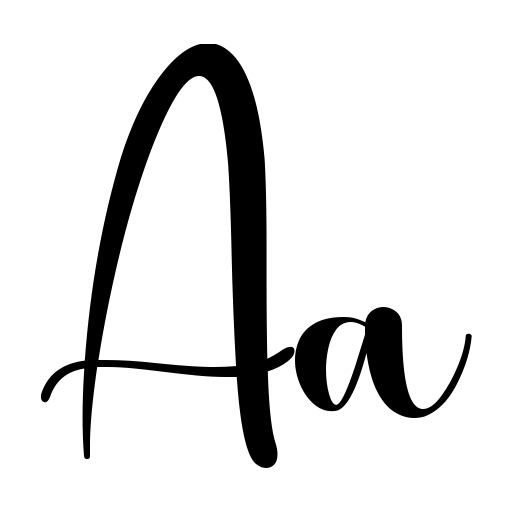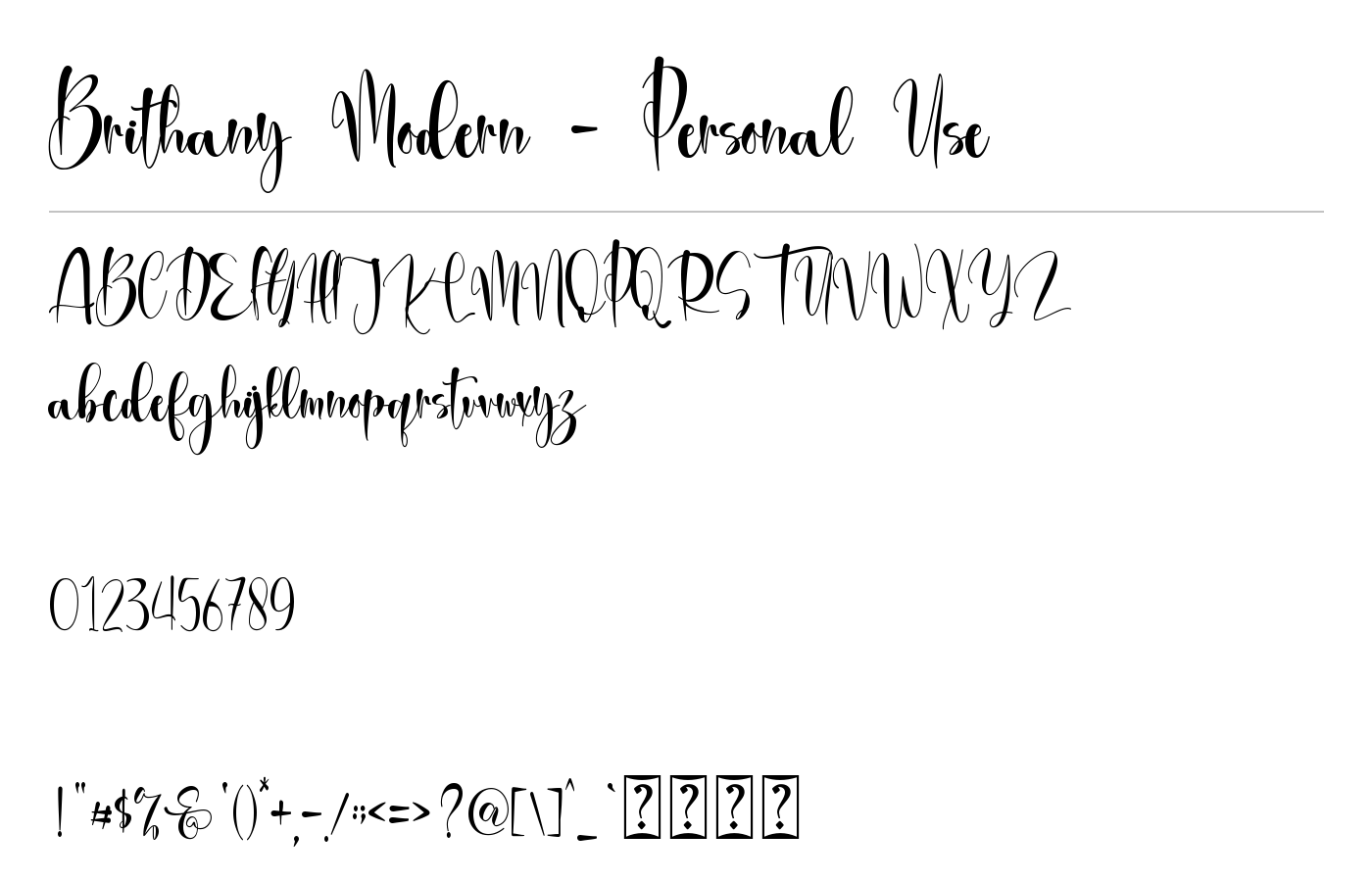
Brithany Modern is a stylish script font characterized by its elegant, flowing letterforms with a mix of thick and thin strokes that give it a hand-lettered, modern calligraphy feel. Its tall, narrow letters and playful swashes create a sophisticated yet approachable personality, making it ideal for personal branding, wedding invitations, and creative projects that need a touch of charm and femininity. This font works especially well in headlines and logos where a graceful, artistic appearance is desired.
Brithany Modern - Personal Use Font
About Brithany Modern - Personal Use Font